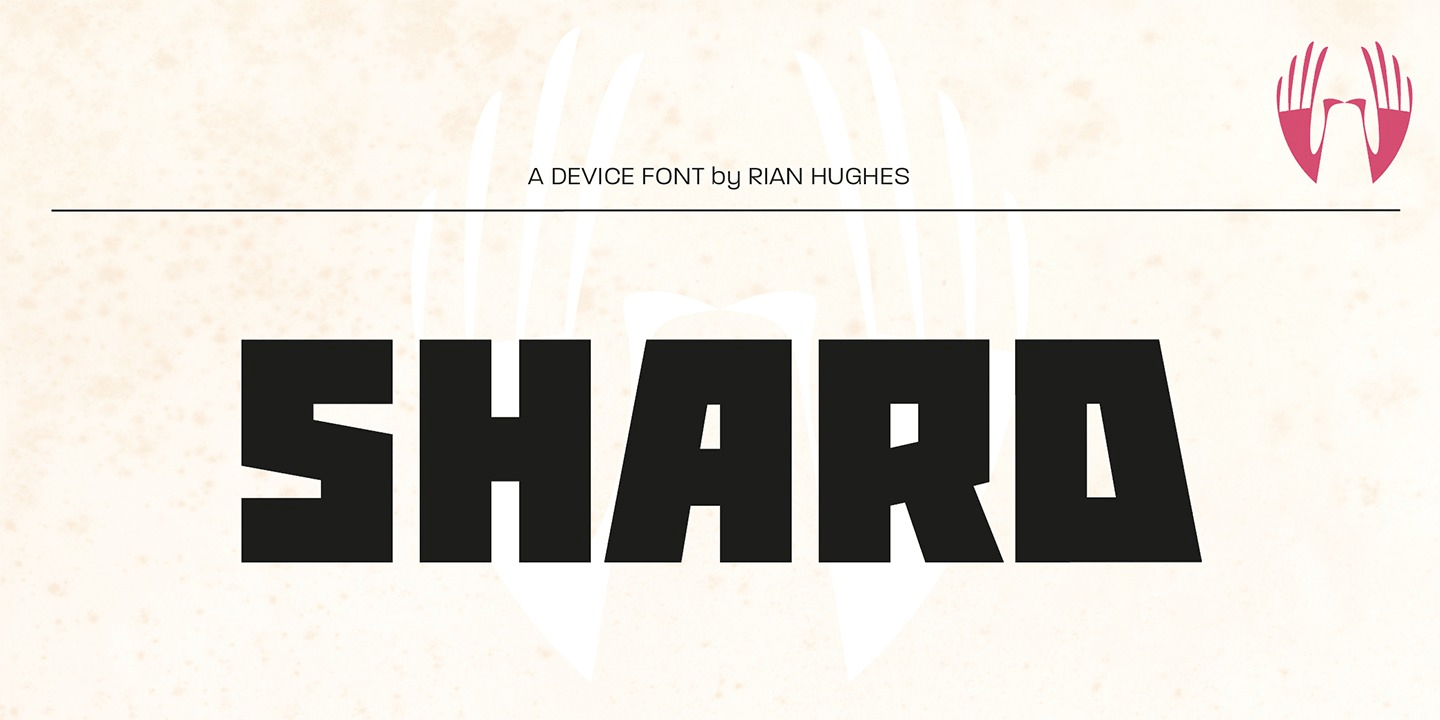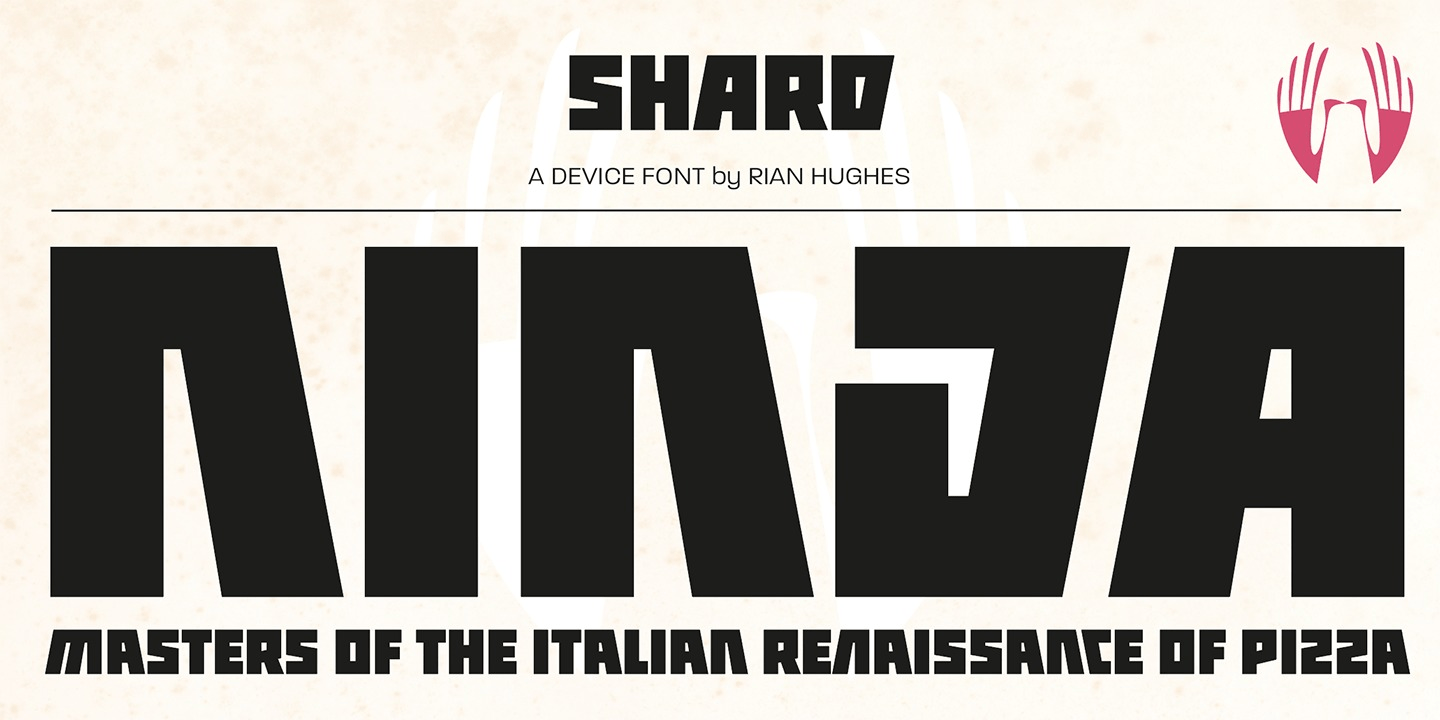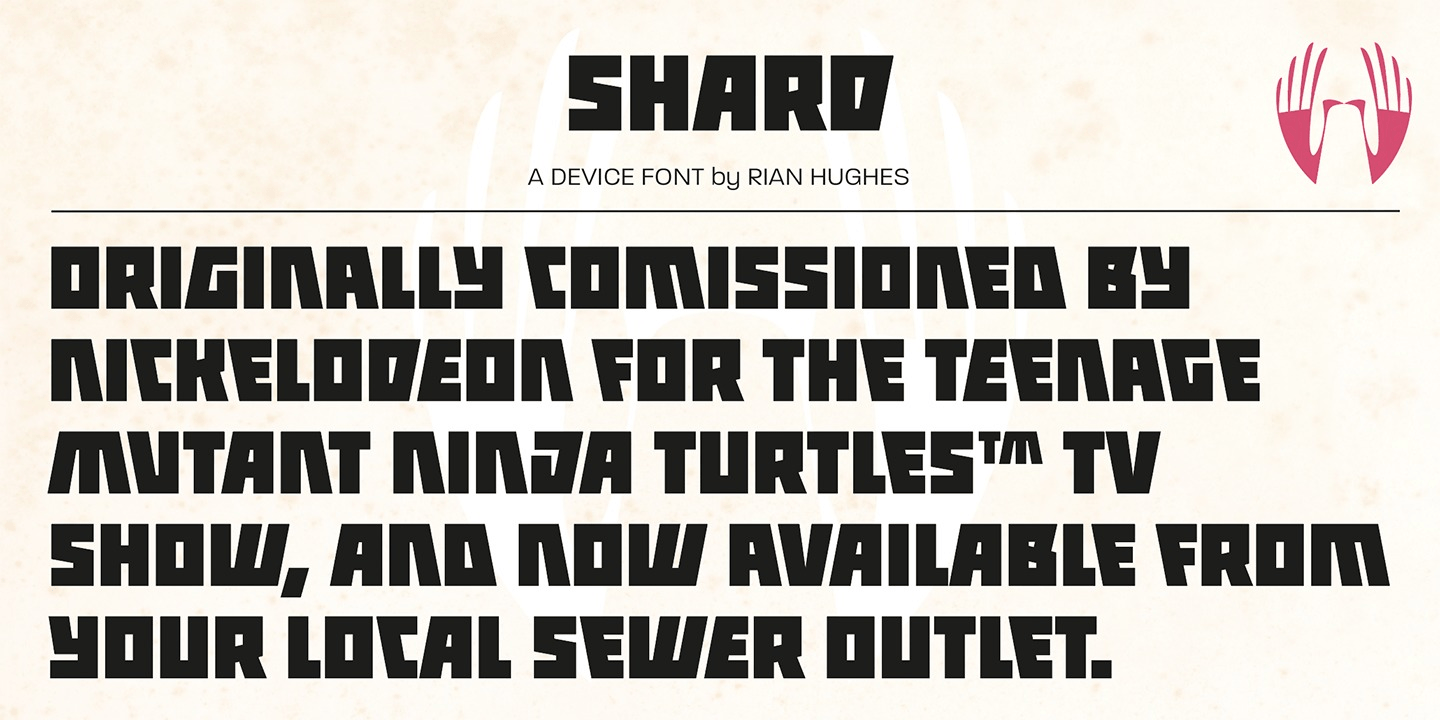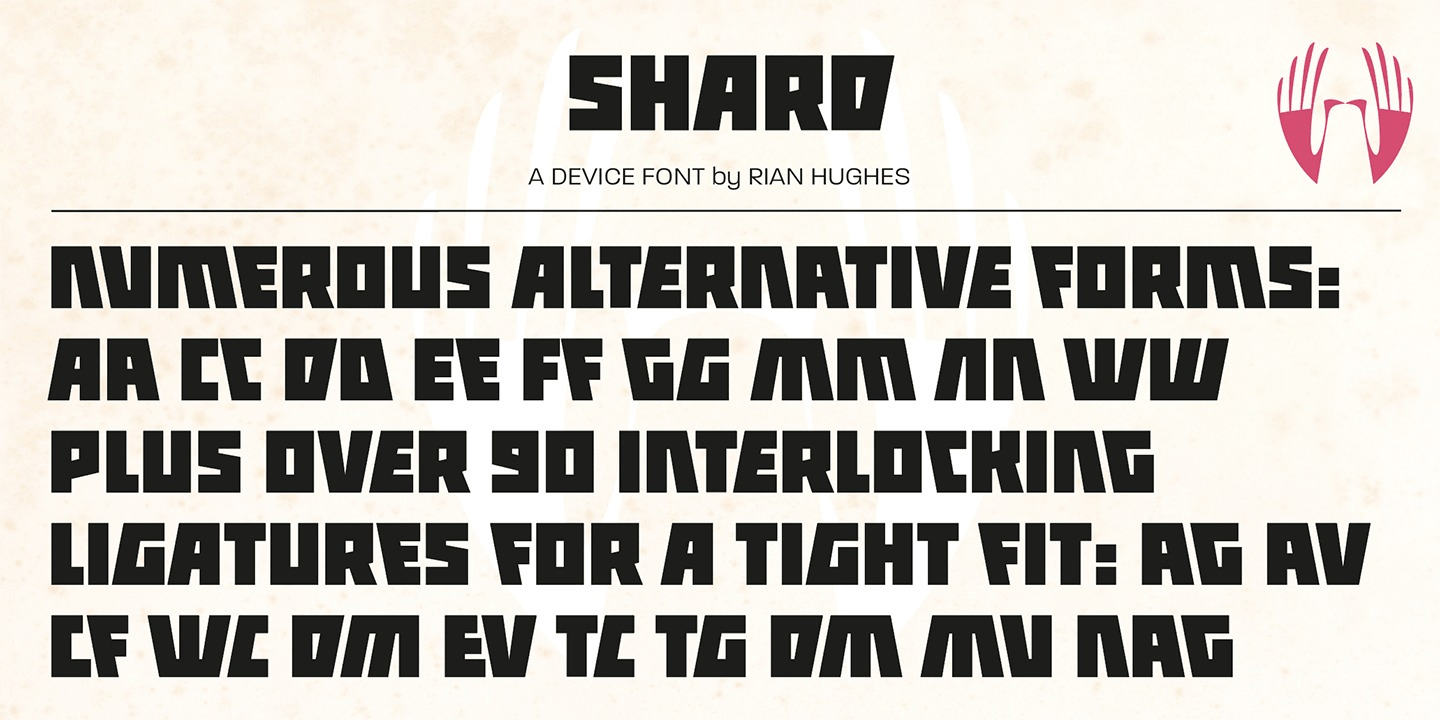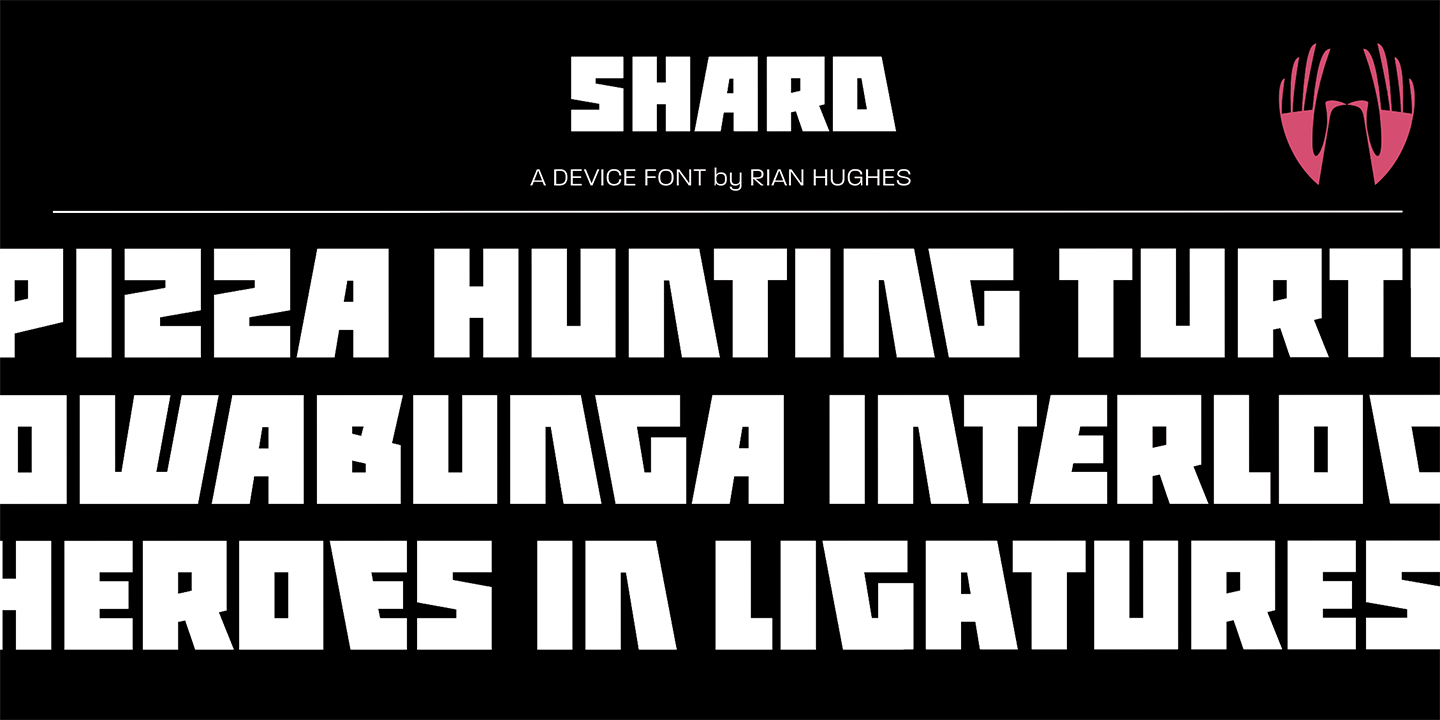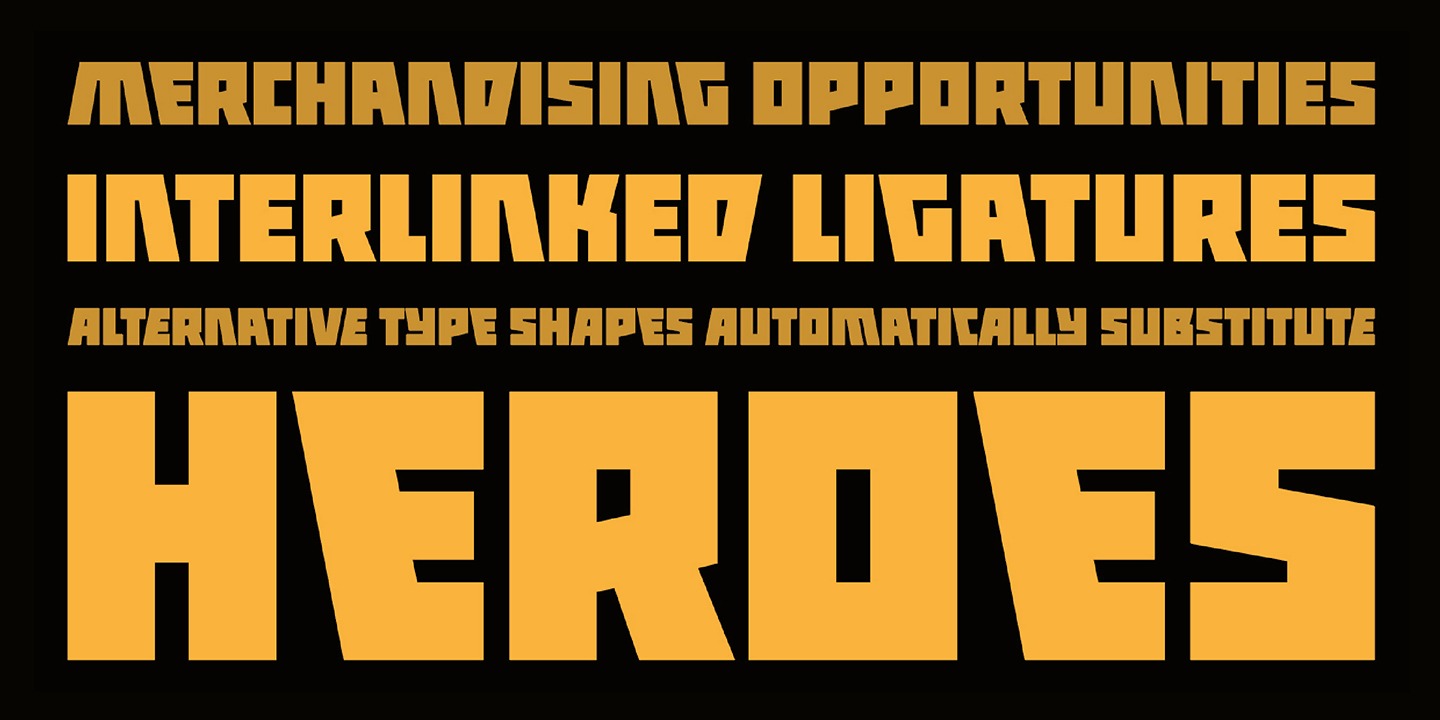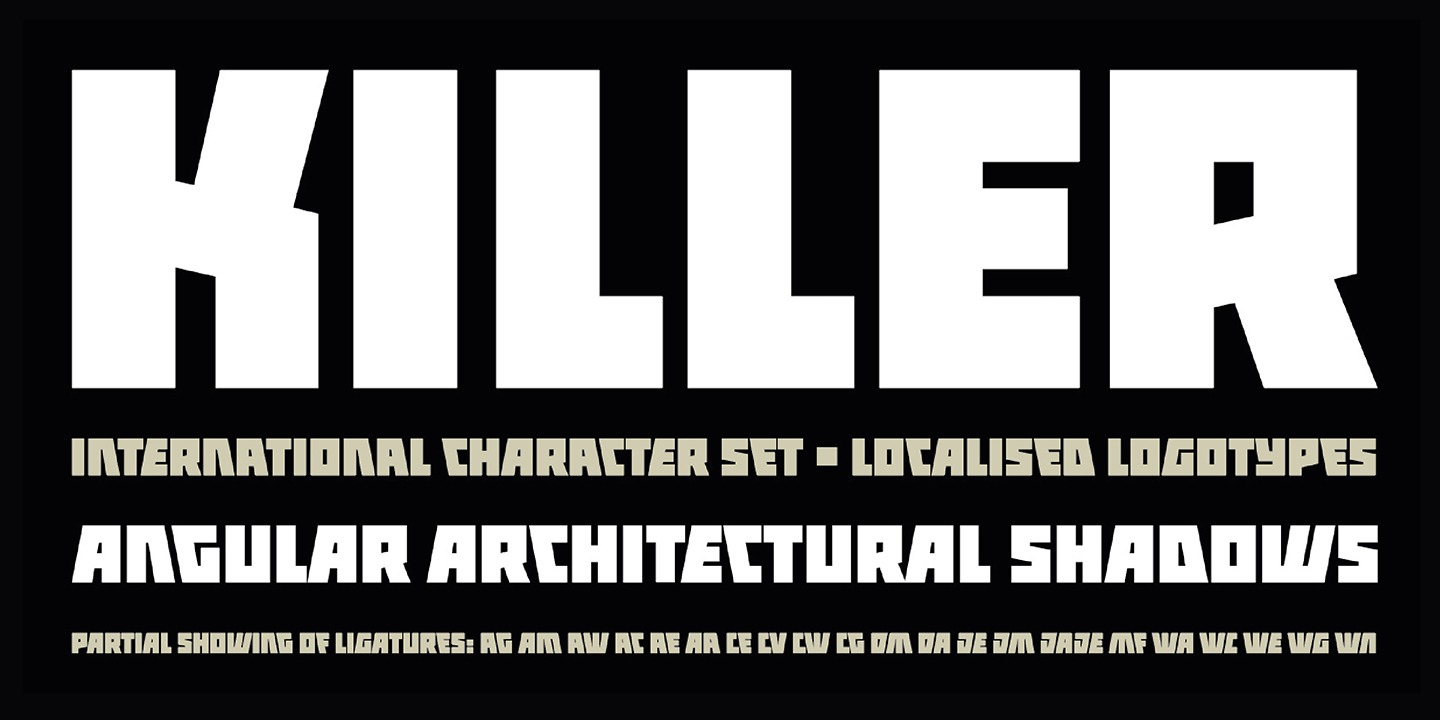
Shard
Font Family by Device Fonts
Shard was originally commissioned for Nickelodeon's 3D reboot of the Teenage Mutant Ninja Turtles franchise. It complemented the show's new angular logo, which Rian Hughes also designed.
There are alternative versions of many letters available in the upper and lower case keys, and a selection of around 90 ligatures that automatically substitute themselves in running text to give a tight, interlocked fit.